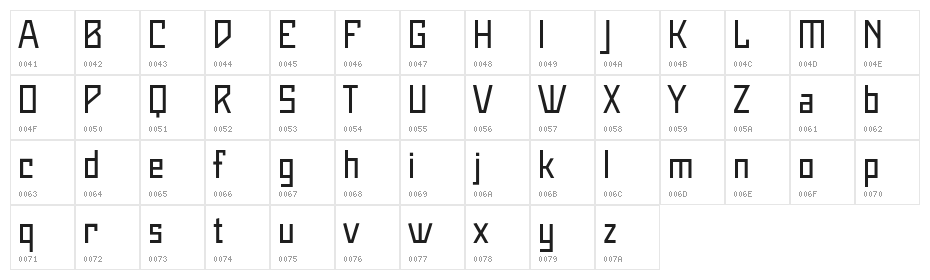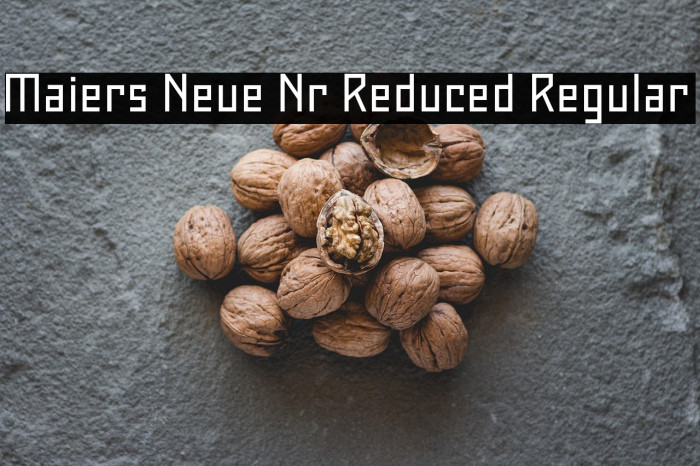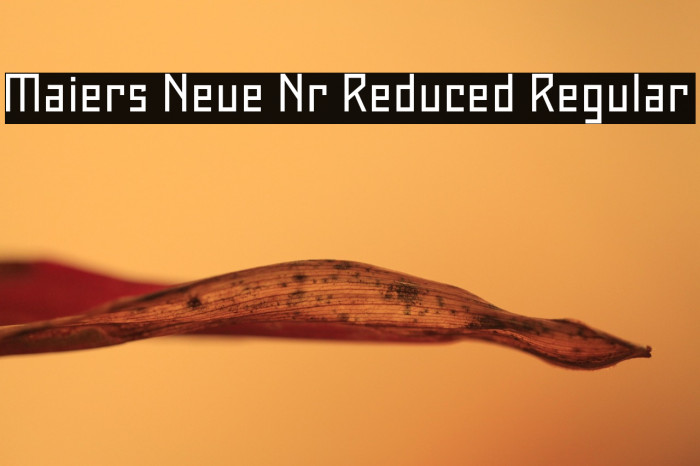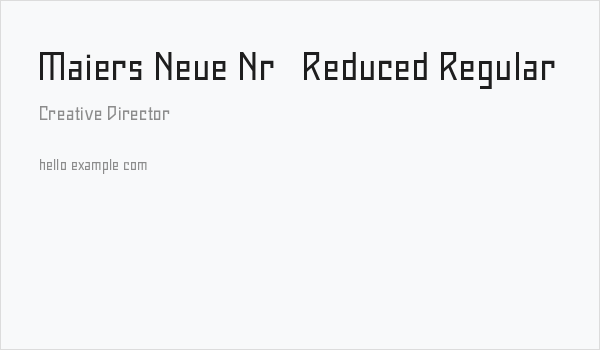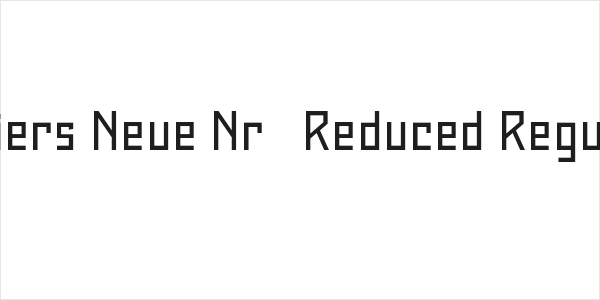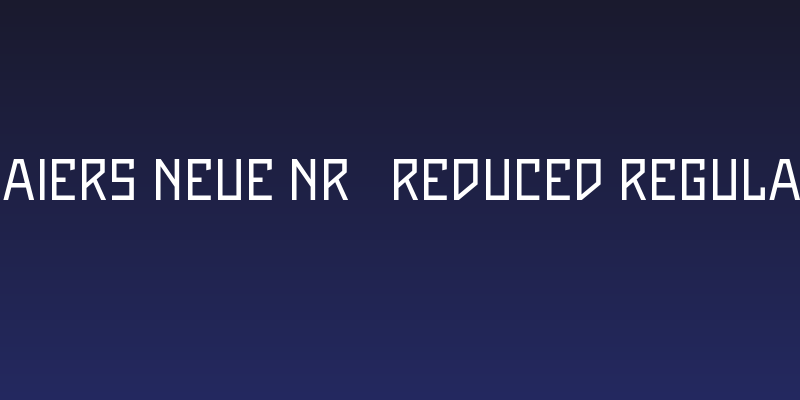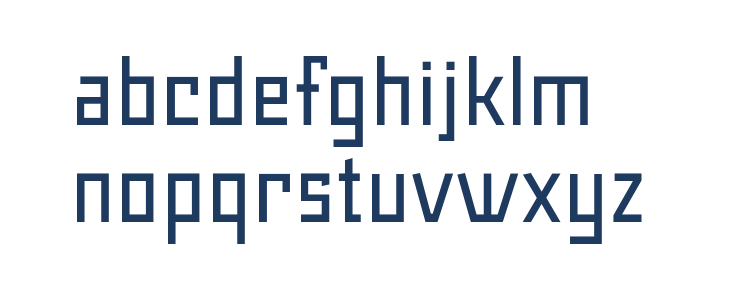
Maiers Neue Nr.8 Reduced Regular Font
Maiers Neue Nr.8 Reduced Regular Description
This font features a geometric and structured design, characterized by its angular and boxy letterforms. The uppercase letters are particularly striking, with sharp edges and a uniform height that creates a cohesive appearance. The lowercase letters maintain the geometric theme, offering a consistent visual flow. The font's clean lines and lack of ornamentation give it a modern and minimalist feel, making it suitable for contemporary design projects. The uniformity in stroke width across all characters contributes to its bold and assertive presence, while the spacing between characters is balanced, ensuring readability.
| Proposed Projects | Ideal for branding, posters, and digital interfaces where a modern and assertive look is desired. |